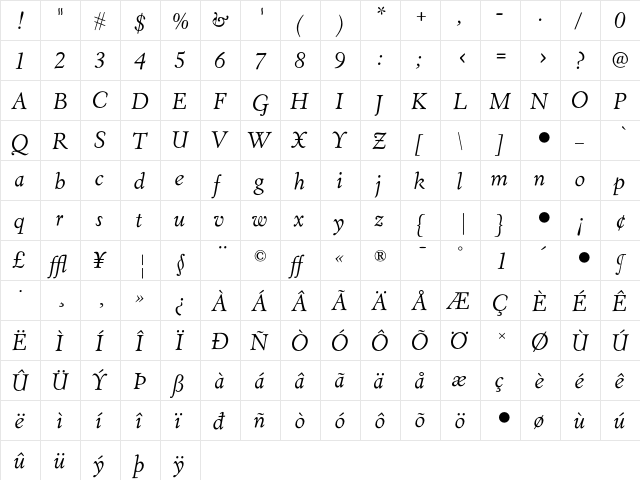
Eldorado Italic
Design Context for Eldorado Typeface
Eldorado takes a measured approach to typography — its balanced proportions and neutral character make it a reliable workhorse for both digital and print work. Its italic angle brings a sense of urgency and motion to the letterforms.
Pro Tip: Try Eldorado for annotation and caption copy alongside an upright companion — the contrast in angle creates a dynamic but ordered typographic system.